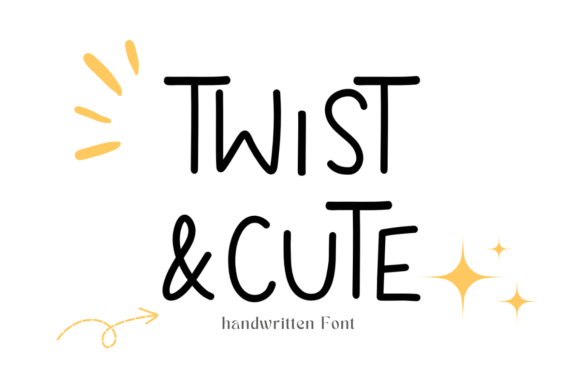
Journey into the realm of Twist and Cute, a font family that captivates with its charm and versatility. From the whimsical strokes of its script to the playful energy it exudes, this font is an ode to joy and creativity. Whether you're a seasoned designer or just starting to explore the world of typography, let Twist and Cute be your companion on this artistic voyage.
Designed by The Magic Bee Studio, Twist and Cute is the epitome of carefree creativity. Its characters dance and flow, creating a visual symphony that brings life to your designs. Whether you're crafting personalized greeting cards, creating eye-catching social media posts, or designing products for your print-on-demand business, Twist and Cute weaves its magic, leaving a trail of delight wherever it goes.
With its ability to transform ordinary text into enchanting expressions, Twist and Cute opens up a world of possibilities for you to connect with your audience on a deeper level. Its endearing style adds a touch of warmth and playfulness to your words, inviting readers to embark on a journey of discovery with every letter. Whether you're creating invitations for special occasions, designing logos that leave a lasting impression, or crafting marketing materials that stand out from the crowd, Twist and Cute becomes your secret weapon, turning words into works of art.
But it's not just about aesthetics; Twist and Cute is also a practical choice for designers. Its clean, legible style ensures that your message is conveyed with clarity and impact, even in the smallest of spaces. Its extensive character set and ligature support provide endless opportunities for typographic exploration, allowing you to create visually stunning designs that captivate and engage your audience.
So, if you seek a font that sparks joy, ignites creativity, and adds a touch of magic to your designs, look no further. Twist and Cute awaits you, ready to transform your words into enchanting expressions that resonate with your audience. Embrace the charm and versatility of Twist and Cute, and let your creativity soar to new heights.